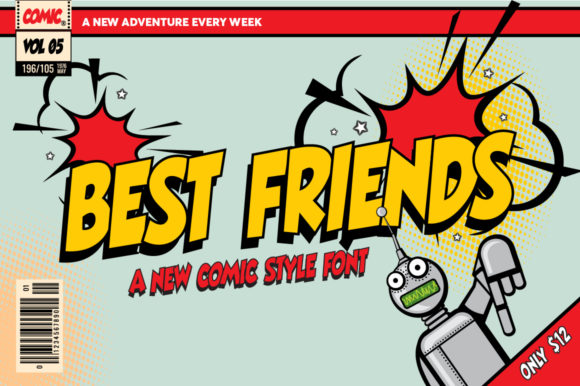
Prepare to be enchanted by Best Friends Font, a display font masterpiece that's nothing short of captivating. Crafted with meticulous attention to detail by the talented Salt and Pepper Fonts, this font family is a symphony of playful curves, whimsical twists, and infectious fun. Say goodbye to mundane typography and embrace the extraordinary with Best Friends Font.
Immerse yourself in the world of fashion, where style knows no bounds and creativity reigns supreme. Best Friends Font is the ultimate companion for fashion websites, adding a touch of playfulness and a sprinkle of whimsy to your online presence. Let your brand shine with a font that speaks to the fashion-forward, the trendsetters, and the style enthusiasts.
With its enchanting charm, Best Friends Font breathes life into your designs, captivating audiences with its playful personality. It's the perfect choice for creating eye-catching logos, captivating social media posts, and stunning website banners that leave a lasting impression. Unleash your creativity and let Best Friends Font take you on an adventure of visual storytelling.
Best Friends Font is a treasure trove of versatility, effortlessly adapting to various design projects. Whether you're crafting invitations for a whimsical party, designing posters for an upcoming event, or creating packaging for a delightful product, this font is your trusty companion. Its playful nature knows no limits, adding a touch of joy to every project you undertake.
Step into a world of imagination and delight with Best Friends Font. This display font is a true gem, promising to add a dash of magic to your creative endeavors. Embrace the playful, the twisty, and the downright fun, and let Best Friends Font guide you on a journey of typographic wonder.